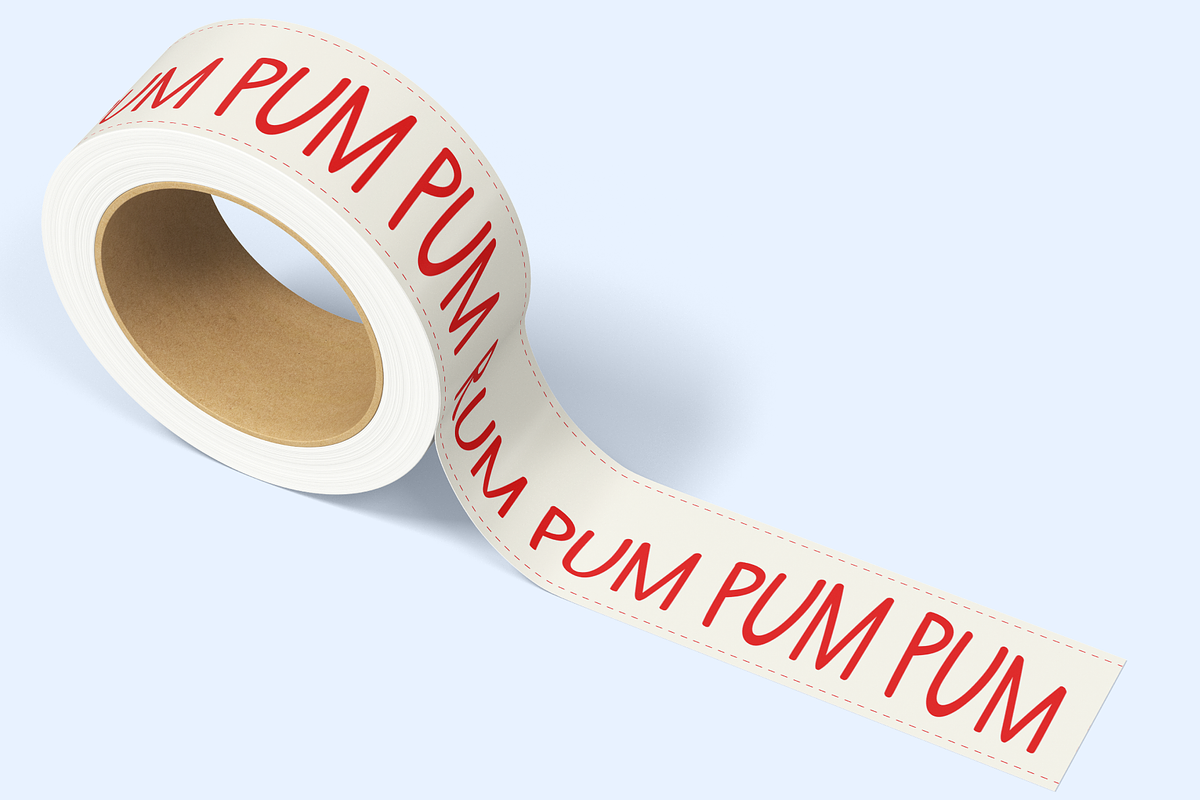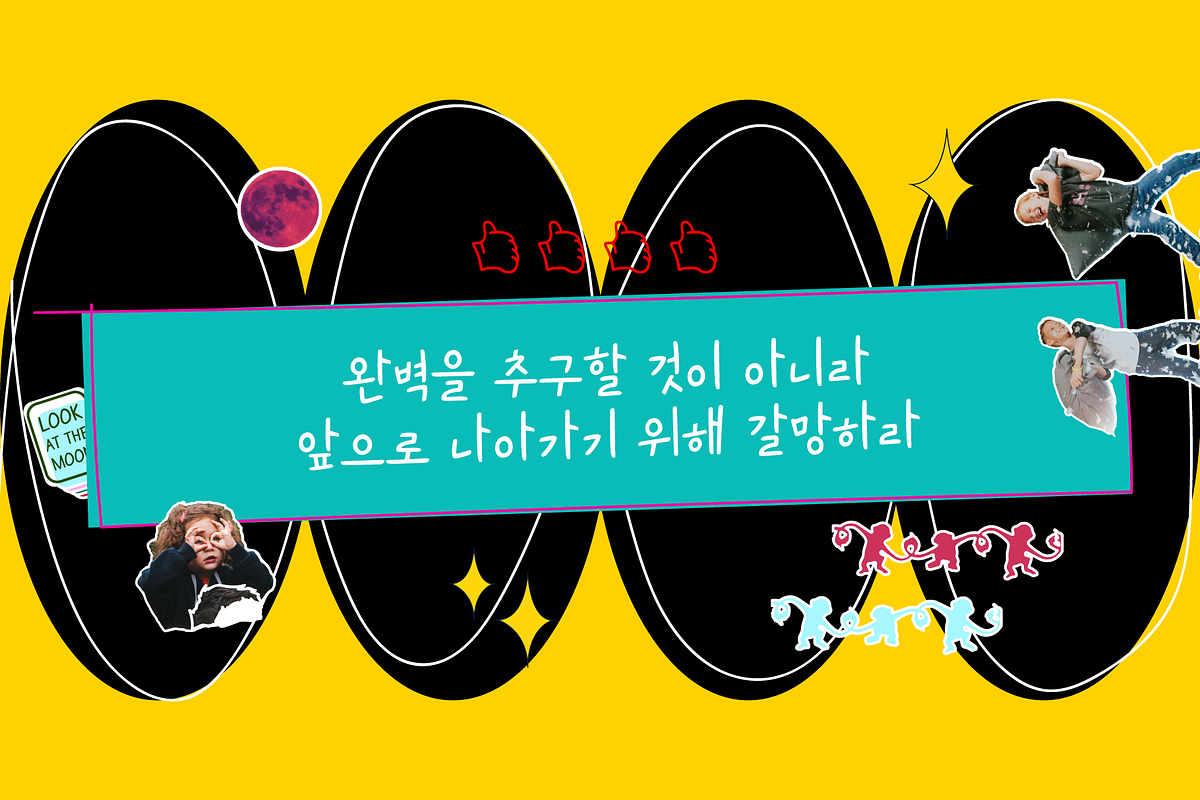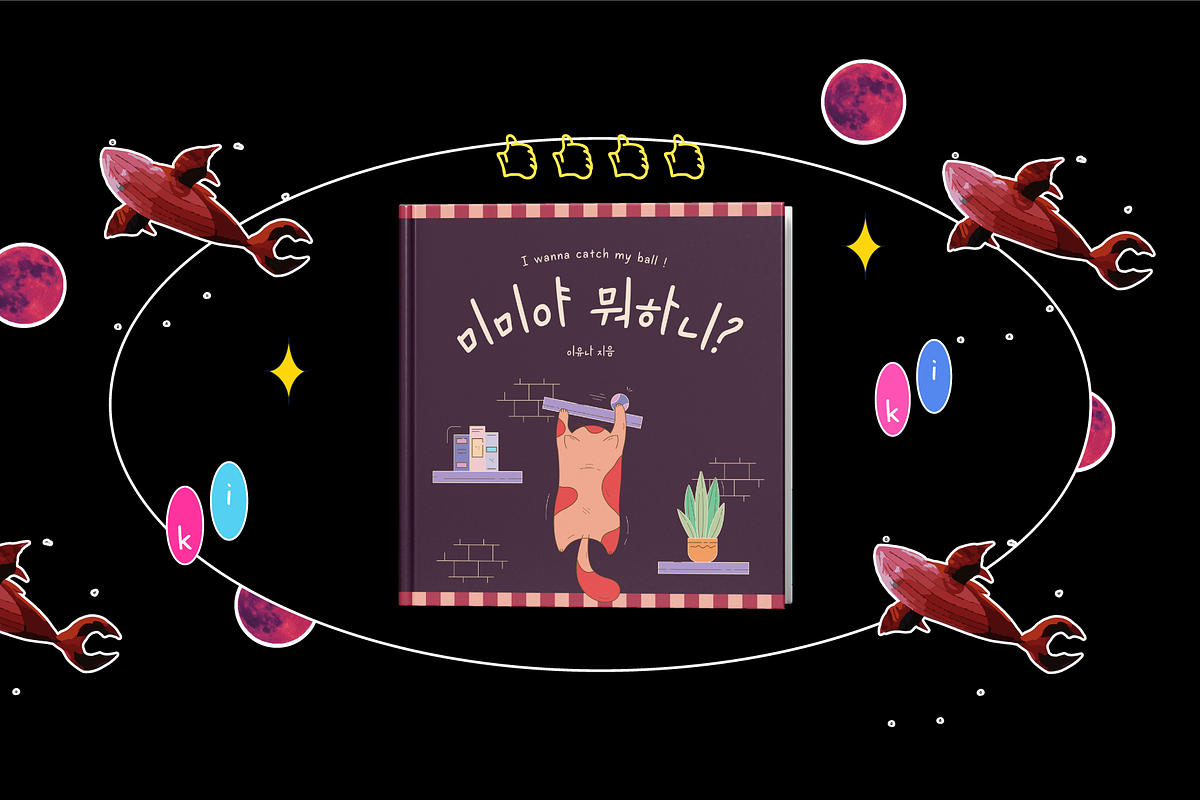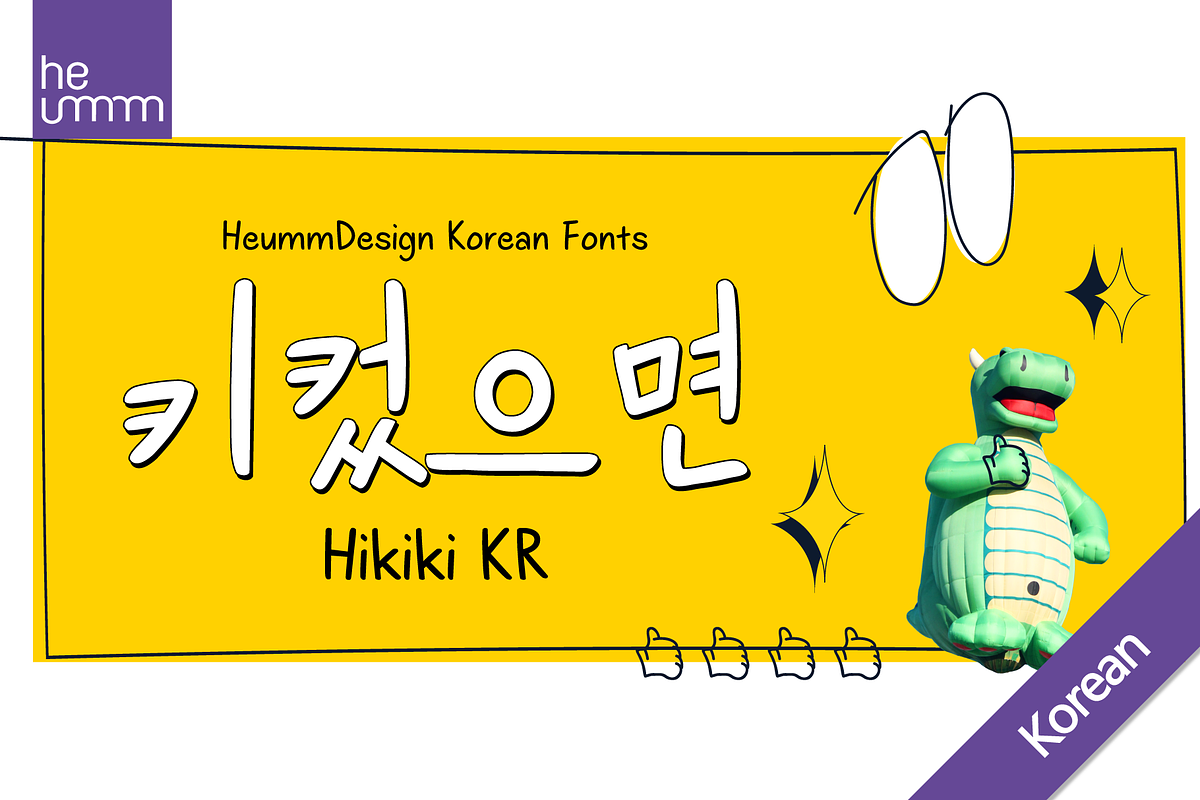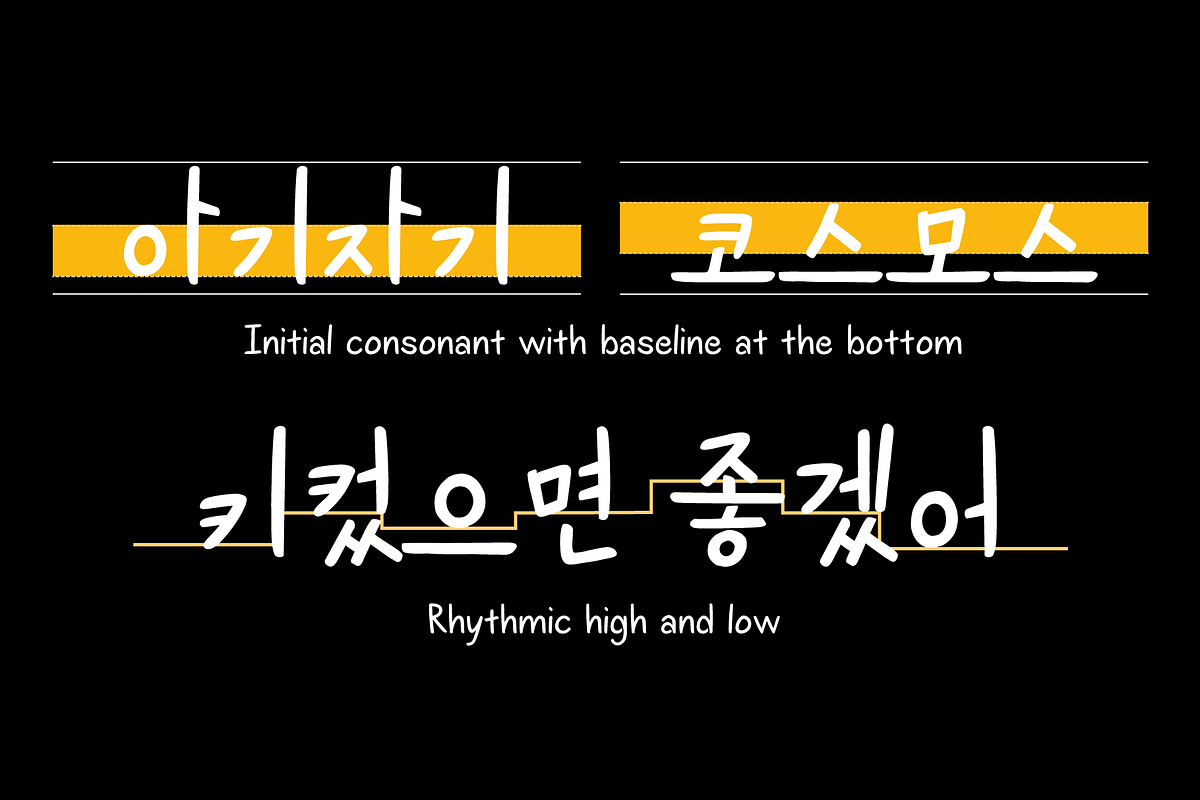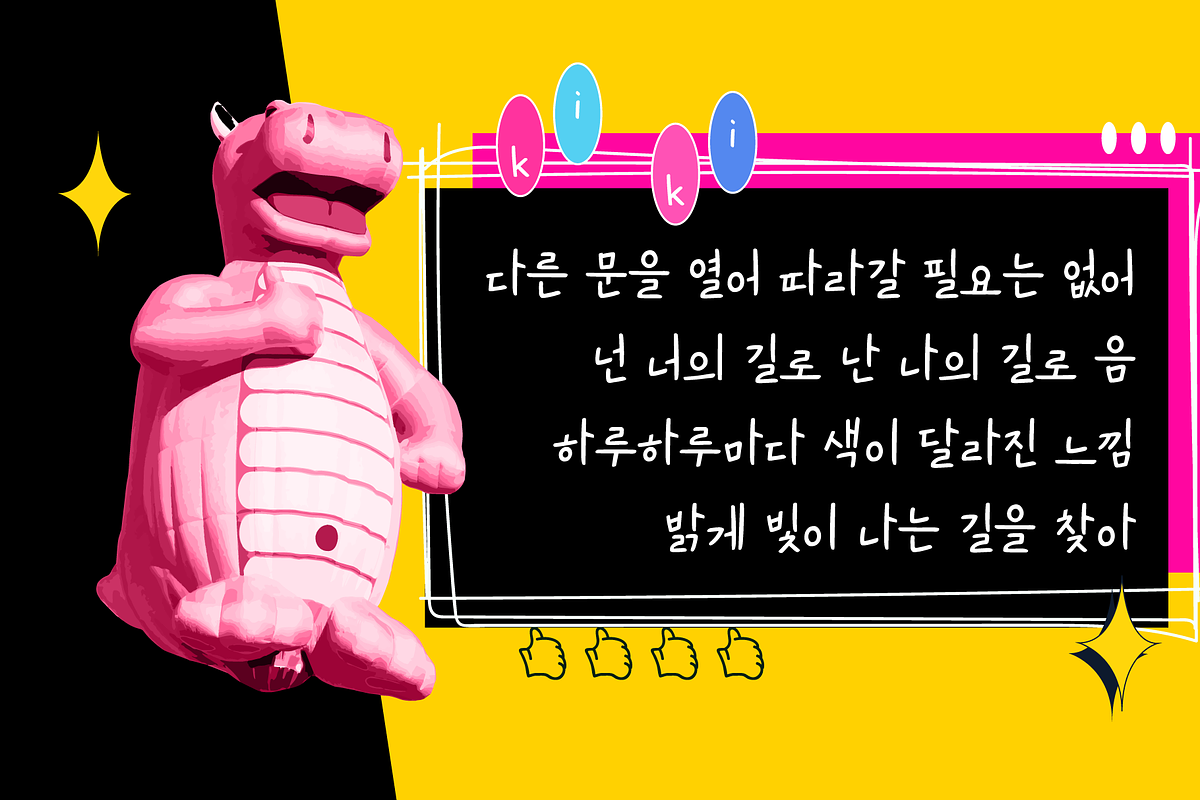
HU Hikiki KR is a handwritten font that embodies the desire to become an adult as a child and imitate adults. It is a unique typeface with a large initial consonant, giving it a feeling of lying down and a sense of rhythm due to its large height. This font contains Korean.
The combination of long vowels compared to small consonants adds to the feeling of handwriting.